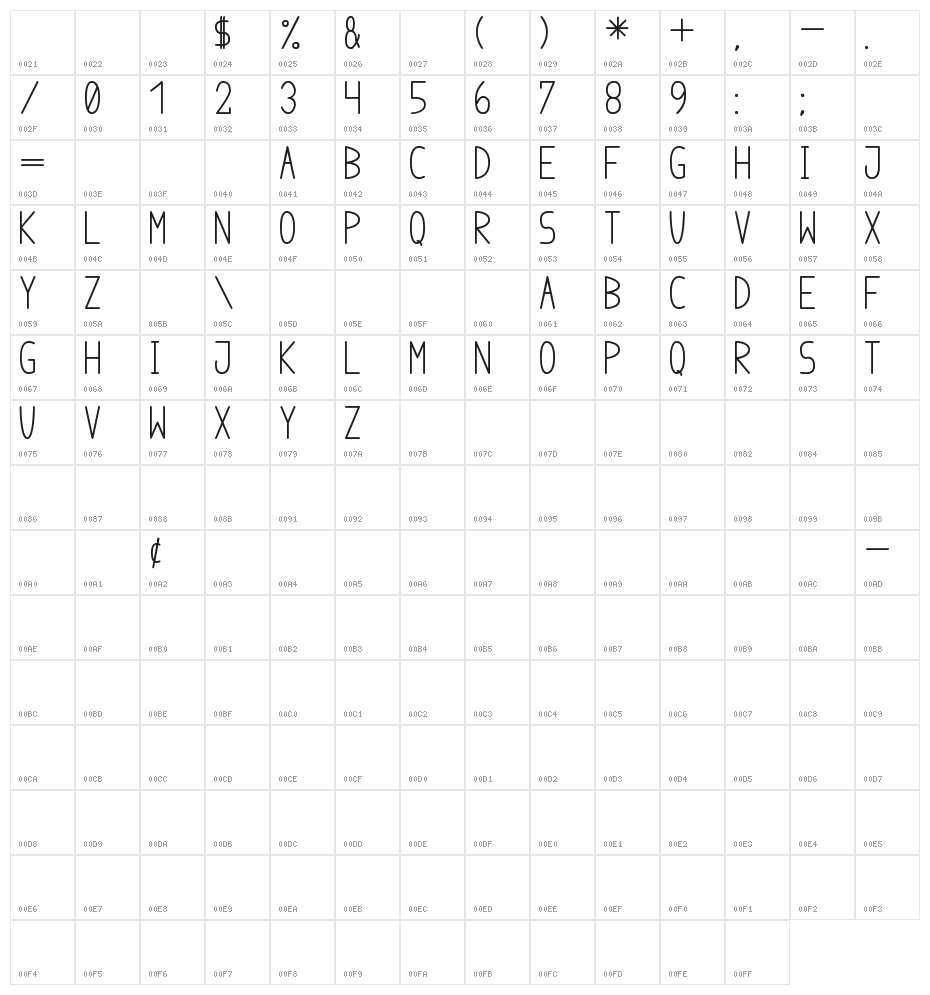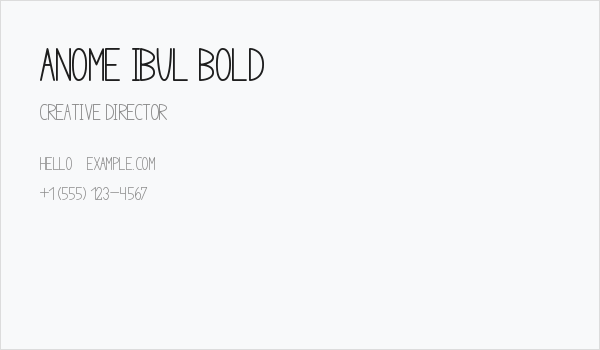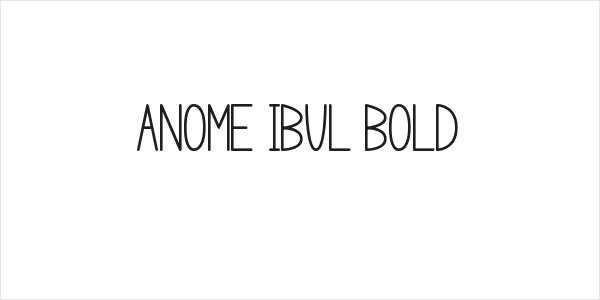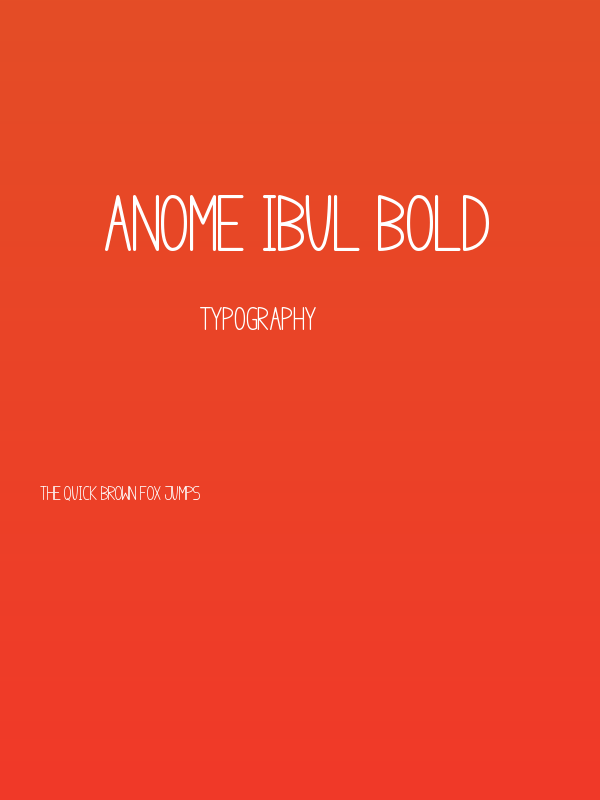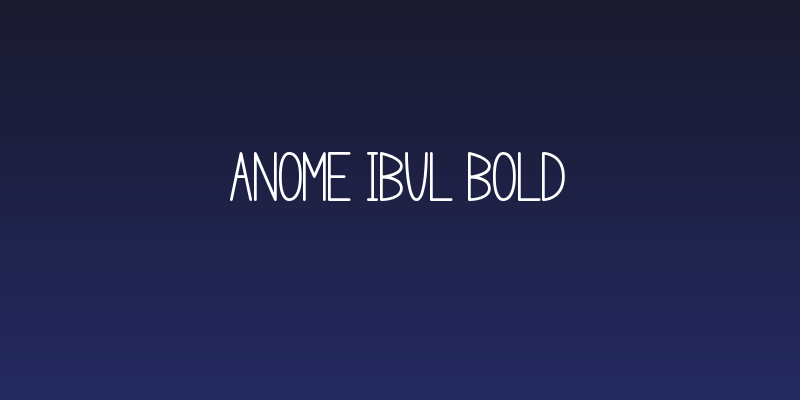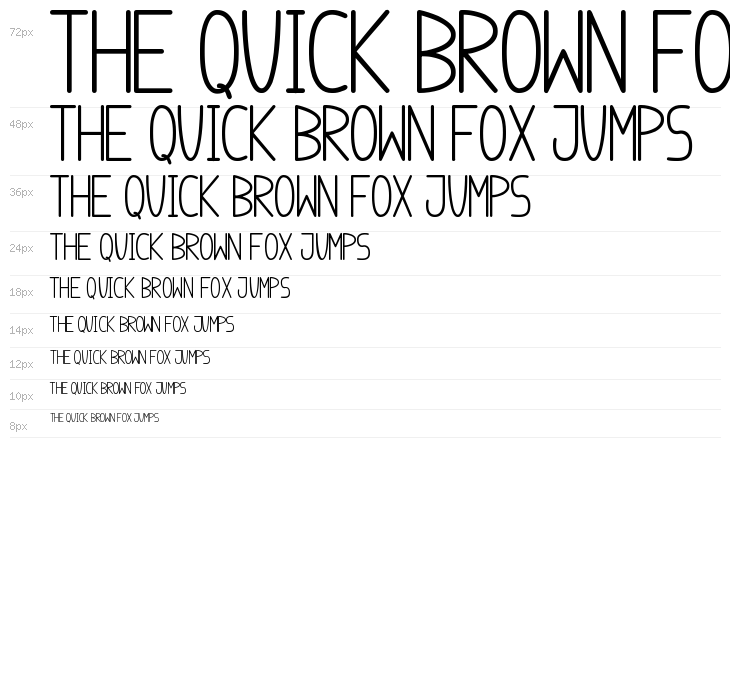
anome ibul bold Font
anome ibul bold Description
This font features a clean and modern design with a geometric structure. The characters are tall and narrow, giving it a distinctive and contemporary appearance. The strokes are consistent in width, providing a uniform look across all letters and numbers. The uppercase and lowercase letters maintain a similar height, which adds to the font's cohesive style. The rounded edges of the characters soften the overall look, making it approachable and friendly. The numerals are clear and easy to read, while the special characters are well-integrated into the font's design. This font is versatile and can be used in a variety of contexts, from digital to print media.